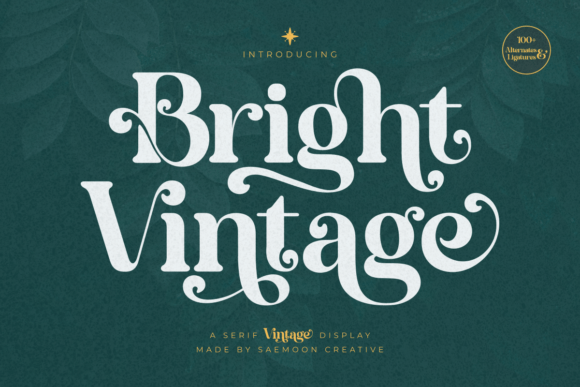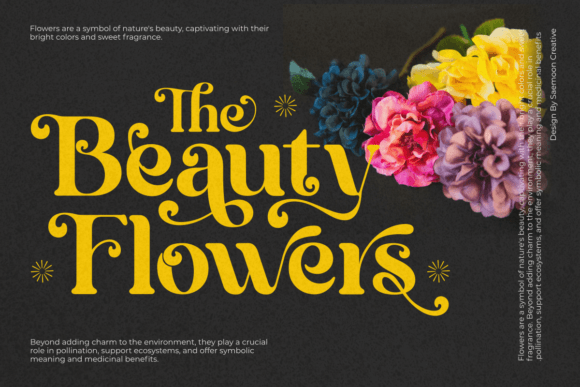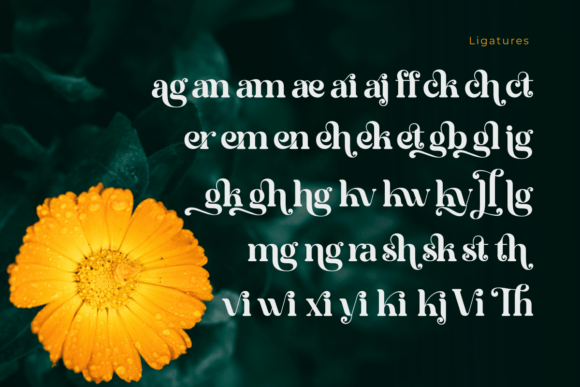
Bright Vintage Font
Imbued with nostalgia and the elegance of yesteryears, Bright Vintage is a captivating serif display font that beautifully melds the past with the present. Its bold strokes and graceful curves hearken back to the classic typographic aesthetics of the early 20th century, delivering an aura of vintage allure. The distinct sharpness of its serifs converges with fluid rounded edges to strike a remarkable harmony between sophistication and warmth.Bright Vintage comes adorned with a rich array of ligatures and alternates, empowering designers the flexibility to create striking visual diversity in their work. Be it branding, packaging, logos or editorial designs, Bright Vintage effortlessly breathes a timeless retro vibe into all projects. Its exceptional craftsmanship exudes charm and character – an embodiment of style and tradition, fitting for those with a discerning taste for elegance.